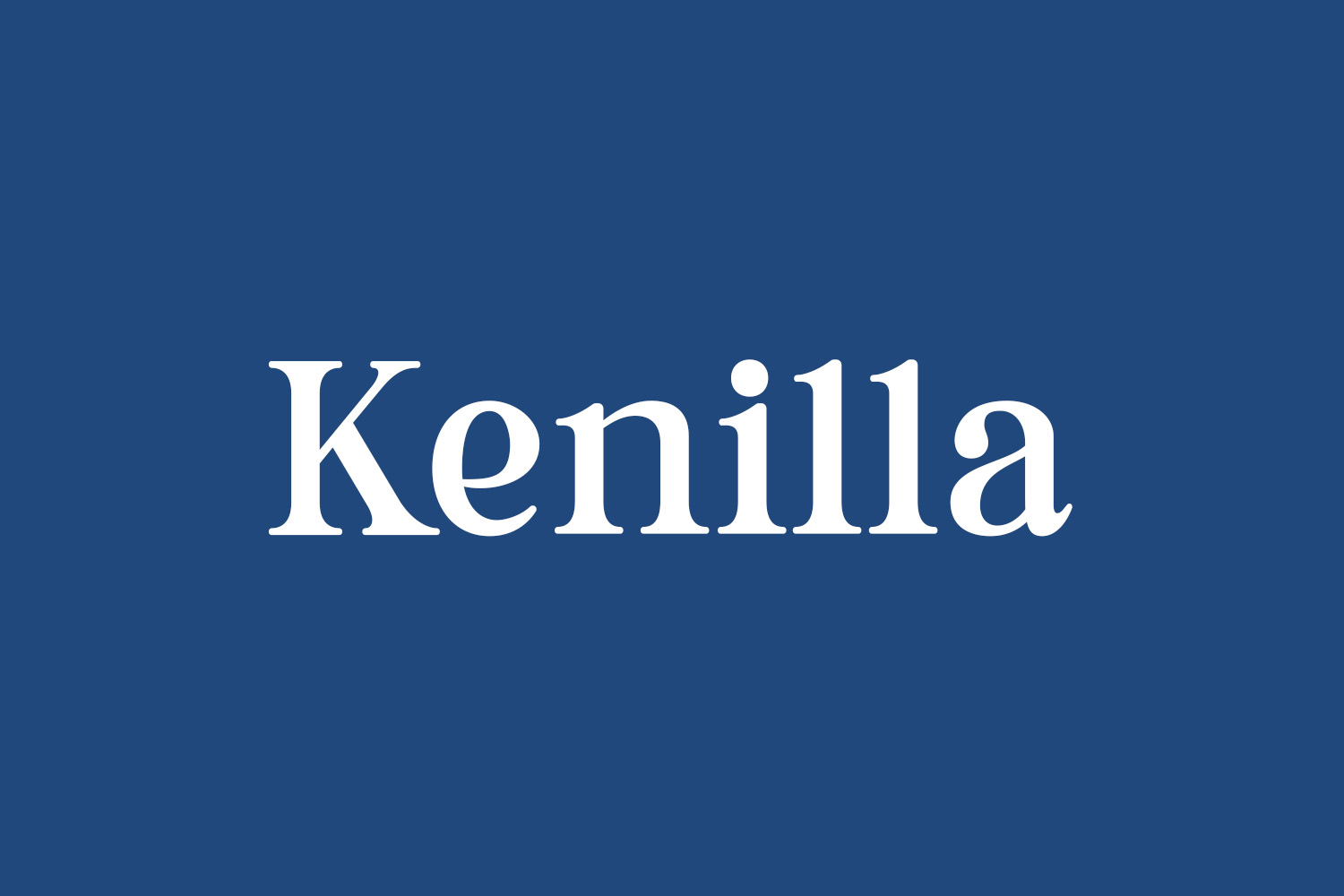
Kenilla Free Font exudes a chic and daring serif typeface aesthetic. It proves to be an impeccable choice for enhancing product packaging, elevating branding endeavors, gracing magazine covers, dominating the realm of social media, adding elegance to weddings, or simply articulating sentiments atop any backdrop. Kenilla Free Font is free for personal use only. Please purchase the full version for commercial use.
Designed by BrandSemut